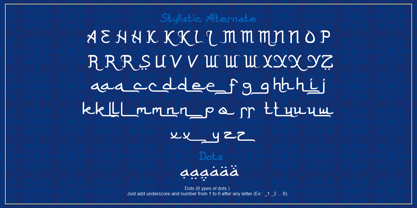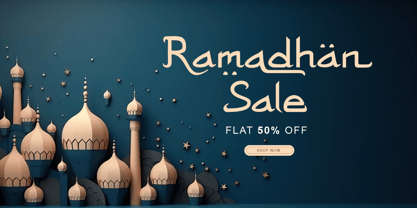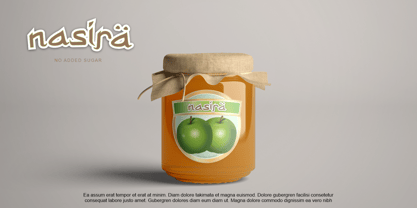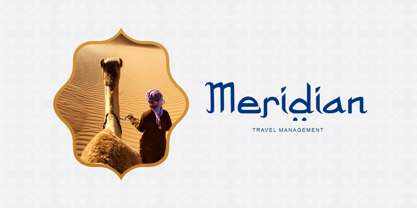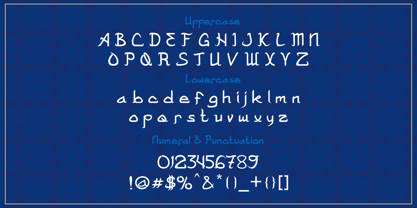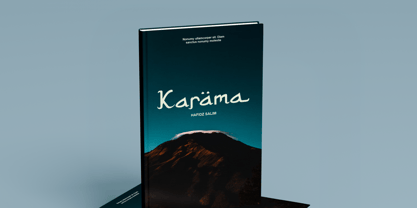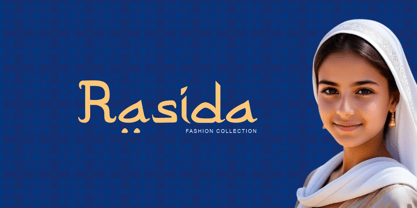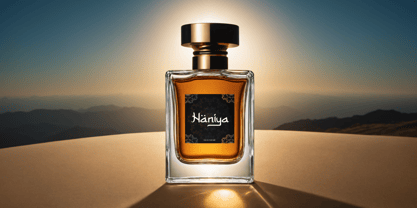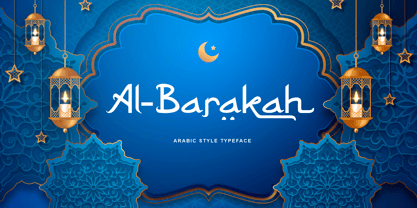
Al Barakah Karim
by Reyrey Blue Std
The Al Barakah Karim Font Family was designed by Nur Hasan and published by Reyrey Blue Std. Al Barakah Karim contains 1 styles. More about this family
Al-Barakah – The Perfect Arabic Style Typeface for Elegant & Cultural Designs
Looking for an Arabic-style font that blends tradition with modern design? Introducing Al-Barakah, a sophisticated typeface inspired by the beauty of Arabic calligraphy. With its graceful curves and artistic details, this font brings an authentic Middle Eastern touch to your projects.
Why Choose Al-Barakah?
✔ Elegant & Versatile: Perfect for Ramadan, Eid, and Islamic-themed designs
✔ Luxury Aesthetic: Ideal for high-end branding, restaurant logos, and packaging
✔ Modern Arabic Flair: A fusion of tradition and contemporary minimalism
✔ Perfect Readability: Designed for both digital and print media
Best for:
• Islamic festival promotions (Ramadan, Eid, Hajj, Umrah)
• Middle Eastern restaurant branding & packaging
• Wedding invitations & cultural event posters
• Social media graphics & digital marketing
• Luxury fashion & perfume branding